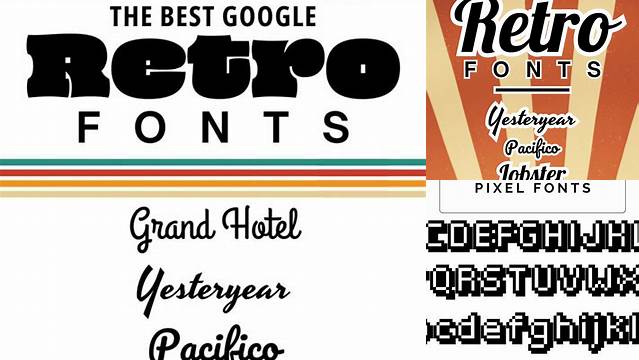
Free Pixel Fonts: Google's Retro Design Guide
Free Pixel Fonts on Google: A Retro Design Guide
Hey guys! Ever feel that urge to dive headfirst into the nostalgic world of retro gaming or create designs with that classic, blocky aesthetic? Well, you're in luck! We're going to explore the fantastic world of free pixel fonts you can snag right from Google Fonts. These fonts are your secret weapon for achieving that perfect 8-bit or 16-bit vibe.
Pixel fonts are more than just fonts; they are a statement. They're a throwback to a time when every pixel mattered, and designers had to be incredibly creative within the limitations of the technology. Now, you can harness that same charm for your modern designs. Whether you're working on a website, a game, a logo, or even a social media post, these pixel fonts can add a unique touch that screams retro cool. We will dive into how to find them, why they are awesome, and how to use them effectively. Get ready to level up your design game! These fonts are not just about aesthetics; they are about storytelling. They evoke memories of simpler times, of hours spent glued to screens, and of the thrill of adventure. By using them, you're not just adding text; you're adding a layer of meaning, a touch of nostalgia, and a whole lot of personality. They are a fantastic choice for projects that aim to capture a vintage feel, celebrate gaming culture, or simply stand out from the crowd. From website headers to game interfaces and print materials, pixel fonts can work wonders. We'll cover everything you need to know, making it easy for you to create pixel perfect designs.
Finding Pixel Fonts on Google Fonts
Alright, let's get down to brass tacks: How do you find these digital gems? Google Fonts is a goldmine for free fonts, and, thankfully, it's super easy to find pixel fonts. Here's a simple guide:
- Search or Browse: You can either use the search bar to type in "pixel", "retro", or even "8-bit." Alternatively, you can browse through the available fonts to discover what catches your eye. If you know the name of the font, you can type it in the search bar directly. Some popular ones include Press Start 2P, VT323, and Silkscreen.
- Filter Your Search: To refine your search and find the best fit for your project, use the filters on the left side of the page. You can filter by: Script (e.g., Latin), Thickness, Width, Slant, and, most importantly, the properties of the font.
- Preview and Test: Before you download a font, take a look at the preview feature. Type in your text and see how it looks. Adjust the font size to ensure it fits your design needs. Some fonts may look amazing in large sizes but not so great in smaller ones, and vice versa.
It's that simple! Google Fonts makes it easy to discover and access these pixel-perfect treasures.
Top Pixel Fonts on Google Fonts
Okay, now for the fun part: recommending some awesome fonts! Here's a list of some of the best pixel fonts available on Google Fonts, along with what makes them special:
- Press Start 2P: This font is a classic and for good reason! It perfectly captures the look of old-school video game text. It's clean, legible, and instantly recognizable. Use it for game titles, scoreboards, or anything that needs that classic arcade feel. The "2P" in its name gives it a playful touch, hinting at the two-player mode common in many retro games.
- VT323: If you're looking for something with a bit more character, VT323 is a solid choice. Inspired by the fonts of old computer terminals, it offers a slightly wider, more distinct look. This font is excellent for creating a techy or sci-fi vibe. It's perfect for simulating old computer screens or adding a touch of cyberpunk to your designs. Its blocky, yet refined, design makes it stand out.
- Silkscreen: Silkscreen is a slightly more refined pixel font. It has a modern edge while still retaining the core characteristics of pixelated design. Its sleek appearance makes it a versatile option for various projects, from website headings to logo designs.
- Pixelify Sans: A good option for body text, it offers decent legibility while maintaining a pixelated appearance. This font is suited for projects where you need a blend of retro aesthetics and readability. Its versatility makes it a strong contender for any design.
- Pixeled: This is a very basic font, so it is not so readable, but looks very retro. Its simplicity makes it perfect for bold statements and eye-catching headlines.
These are just a few examples, guys, and there are tons more to explore on Google Fonts. Each font has its own unique personality and purpose. Take your time to explore and experiment until you find the perfect match for your project. Remember, the best pixel font is the one that perfectly complements your vision and enhances your design.
Tips for Using Pixel Fonts Effectively
Using pixel fonts effectively is all about understanding their limitations and playing to their strengths. Here are some tips and tricks to make the most of these retro gems:
- Size Matters: Pixel fonts typically look best at specific sizes. Too small, and they can become illegible. Too large, and the pixelation can become overwhelming. Experiment with different font sizes to find the sweet spot for your design. The ideal size will depend on the font itself and the context of your design.
- Consider the Background: Pixel fonts often work best against simple, solid backgrounds. Avoid busy backgrounds that could make the text difficult to read. High contrast is usually your best friend: think dark text on a light background or vice versa.
- Spacing and Kerning: Pay attention to the spacing and kerning of your font. Pixel fonts can sometimes have tight spacing, which can make the text appear cramped. Adjust the kerning and line spacing to improve readability. Good spacing ensures that each character remains distinct and easy to recognize.
- Color Choice: Experiment with colors, but remember the retro roots. Bold, vibrant colors often work well with pixel fonts, but feel free to explore more subtle color palettes to achieve a different look. Think about the mood you want to create and choose colors that complement your design.
- Combine with Other Fonts: Don't be afraid to pair a pixel font with a more traditional font. This can create an interesting contrast and add depth to your design. For example, you could use a pixel font for headings and a clean sans-serif font for body text.
- Test on Different Devices: Always test your designs on different devices and screen sizes to make sure the text is readable and looks good. What works on a large monitor might not translate well to a small mobile screen. Always keep accessibility in mind and test on various devices to avoid any legibility issues.
Where to Use Pixel Fonts
Alright, where can you use these pixel-perfect fonts? The short answer is: just about anywhere! Here are some ideas to get your creative juices flowing:
- Websites: Use pixel fonts for headings, navigation, or even body text to create a retro website design. They are especially effective on gaming sites, tech blogs, and any site looking to capture a vintage aesthetic.
- Games: Obviously! Pixel fonts are a staple in game design, from title screens to in-game text. They add to the immersive experience, making the user feel the retro vibe.
- Logos: Create a unique logo that stands out by using a pixel font. They are perfect for businesses with a retro, gaming, or tech-related theme.
- Posters and Flyers: Design eye-catching posters and flyers for events or promotions. Pixel fonts are great for grabbing attention and conveying a specific mood.
- Social Media: Create engaging social media graphics, from memes to quotes, using pixel fonts. They can add a unique flair that grabs users' attention.
- Presentations: Make your presentations more engaging by incorporating pixel fonts. They can add a creative and nostalgic touch to your slides, making them memorable.
- Print Materials: Use them on business cards, brochures, and other print materials to add a retro twist. Pixel fonts can help your print materials stand out.
So, there you have it! Free pixel fonts from Google Fonts are a fantastic resource for designers looking to infuse their work with a dose of retro charm. By understanding how to find, use, and combine these fonts, you can create designs that are both visually appealing and full of personality. Get out there, experiment, and have fun! And remember: the best design is the one that tells a story.